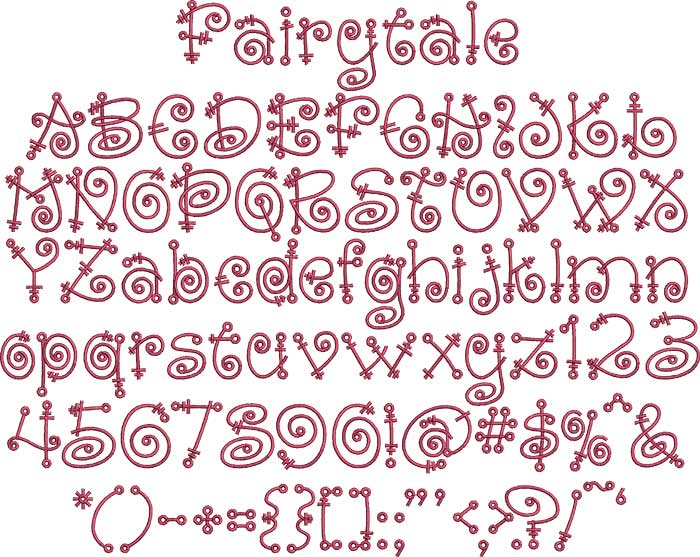
BX Embroidery Font: Fairytale
BX Embroidery Font: Fairytale is a decorative, fanciful curly machine embroidery font that includes A-Z, a-z, 0-9 and punctuation. (93 characters/set). 4 sizes.
BX embroidery font:
Fairytale is a decorative, fanciful curly machine embroidery font that includes A-Z, a-z, 0-9 and the following punctuation: ~`!@#$%^&*()-+={}[]|:;”‘<>,.?/ per size (93 total characters per size); satin stitch.
Each character in this alphabet is individually manually digitized; we do not use a TrueType to Stitches conversion utility to create our fonts. Additionally, stitch attributes such as stitch type, density, compensation, and underlay are optimized for each size available. Choose the size closest to what you need. Shrinking the smallest size is not recommended.